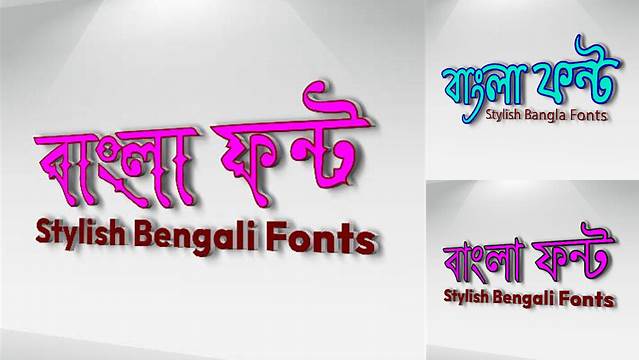
Hey guys! Are you looking to spice up your Photoshop projects with some stunning Bangla fonts? You've come to the right place! In this comprehensive guide, we'll dive deep into the world of Bangla fonts for Adobe Photoshop, exploring everything from where to find them to how to use them effectively. We will be focusing on how these fonts can enhance your designs and where you can find them for free download. Using the right font is crucial in delivering your message effectively, especially when working with a language like Bangla, which has its own unique script and aesthetic. So, whether you're a seasoned graphic designer or just starting out, get ready to unlock a new level of creativity with the power of Bangla fonts. Let's get started and transform your designs from ordinary to extraordinary!
Bangla, also known as Bengali, is a beautiful and expressive language spoken by millions worldwide. When designing in Bangla, the choice of font is paramount. A well-chosen font can capture the essence of the language, convey the intended message with clarity, and elevate the overall aesthetic appeal of your design. Conversely, an inappropriate font can make your design look unprofessional, difficult to read, or even culturally insensitive. Therefore, understanding the nuances of Bangla typography and selecting the right font is crucial for effective communication and visual impact. This includes considering factors such as readability, style, and the overall tone you want to convey in your design. In the following sections, we'll explore the different types of Bangla fonts available, where to find them, and how to choose the perfect one for your specific project. So, buckle up and get ready to delve into the fascinating world of Bangla fonts for Photoshop!
Why Bangla Fonts are Essential for Your Designs
When you're working on projects that target a Bangla-speaking audience, using Bangla fonts isn't just a nice touch – it's absolutely essential. Think about it: you want your message to resonate, to feel authentic, and to be easily understood. Using a generic font just won't cut it. Bangla fonts, on the other hand, are specifically designed to capture the unique character and beauty of the Bangla script. They ensure that your text is not only legible but also visually appealing to your target audience. This is especially important in graphic design, where visual elements play a crucial role in conveying meaning and emotion. By choosing the right Bangla font, you can create designs that truly connect with your audience, making your message more impactful and memorable. Ignoring this aspect can lead to misinterpretations or even alienate your audience, which is why a thoughtful selection of Bangla fonts is paramount for any project targeting this demographic.
Beyond aesthetics, Bangla fonts play a crucial role in ensuring readability and accessibility. The Bangla script has its own unique set of characters, ligatures, and glyphs, which require specialized fonts to render correctly. Using a font that doesn't support these nuances can result in garbled text, incorrect character display, and an overall unprofessional look. This can be particularly problematic in formal documents, publications, and websites, where clarity and accuracy are paramount. Moreover, the right Bangla font can significantly improve the reading experience for individuals with visual impairments or learning disabilities. By choosing fonts that are clear, legible, and appropriately sized, you can make your content more accessible and inclusive. Therefore, selecting the right Bangla font is not just about aesthetics; it's about ensuring that your message is effectively communicated to everyone, regardless of their background or abilities. This commitment to accessibility not only enhances the user experience but also demonstrates a respect for your audience and their needs.
- omicronlab.com: OmicronLab is a prominent name when it comes to Bangla fonts. They offer a vast collection, ranging from traditional scripts to modern, stylized designs. Their website is user-friendly, allowing you to easily browse and preview fonts before downloading. They often provide detailed information about the font's license, ensuring you can use it appropriately. OmicronLab is a fantastic resource for both personal and commercial projects.
- fontbd.com: FontBD is another excellent platform specifically dedicated to Bangla fonts. You'll find a diverse range of options here, including fonts suitable for headlines, body text, and display purposes. The website is well-organized, making it easy to search for specific styles or font families. FontBD also provides helpful information about each font, such as its designer and usage guidelines. This is a great place to discover unique and creative Bangla fonts.
- Behance: While not exclusively a font website, Behance is a treasure trove of design resources, including free Bangla fonts. Many designers share their font creations on Behance as a way to showcase their work and give back to the community. You'll often find high-quality, innovative fonts here that you won't find anywhere else. The downside is that finding specific fonts can be a bit more challenging than on dedicated font websites, but the reward is often worth the effort. Behance is a fantastic source for discovering hidden gems and supporting independent designers.
How to Install and Use Bangla Fonts in Photoshop